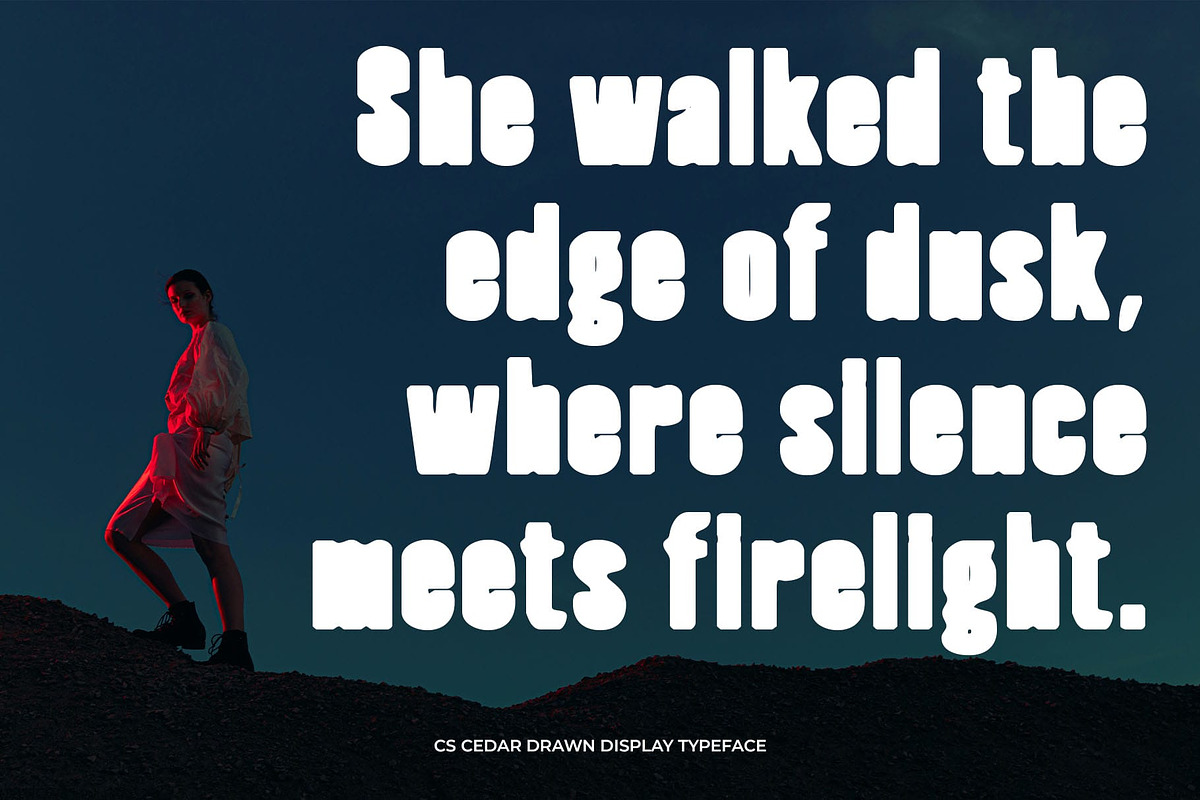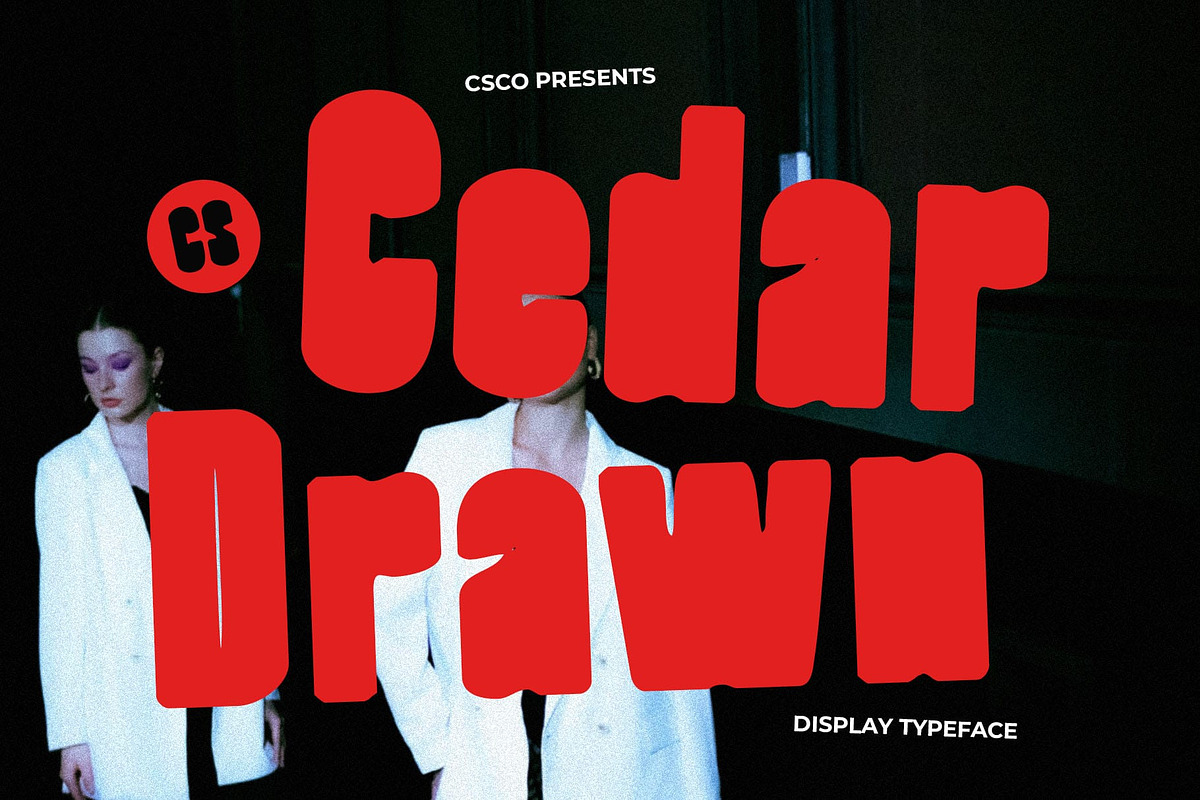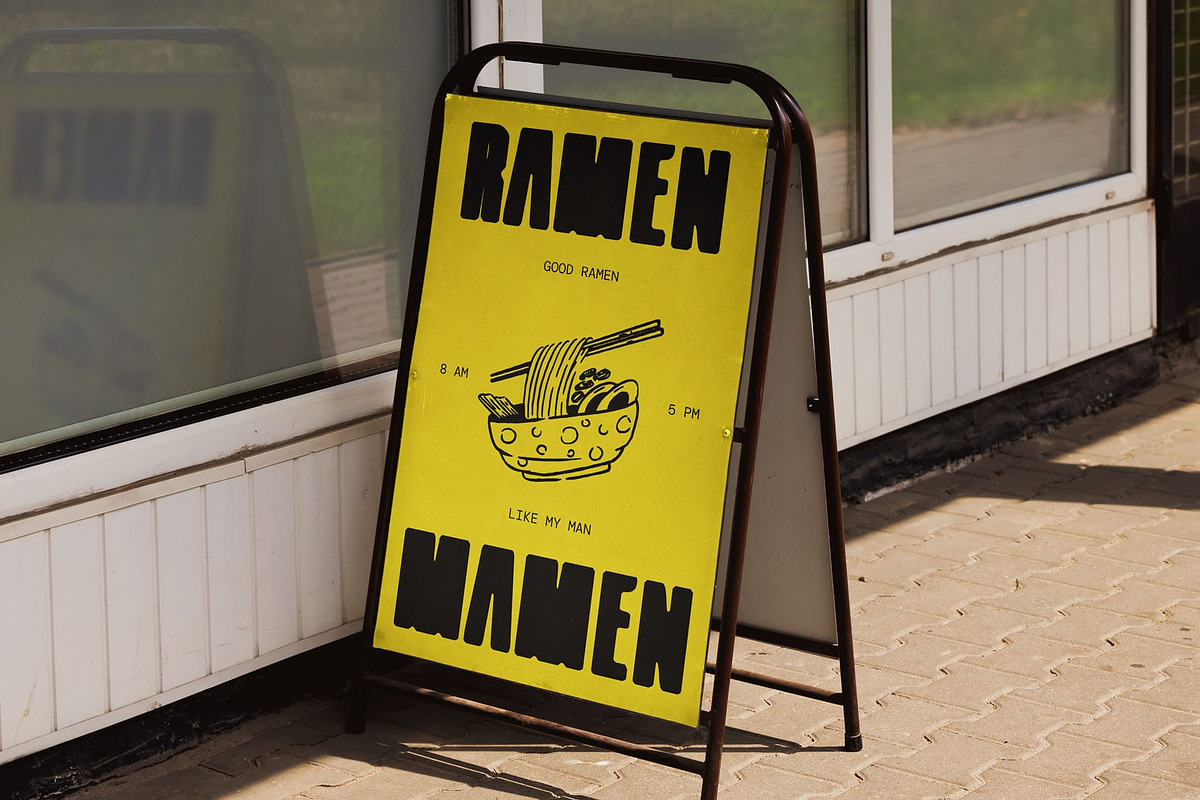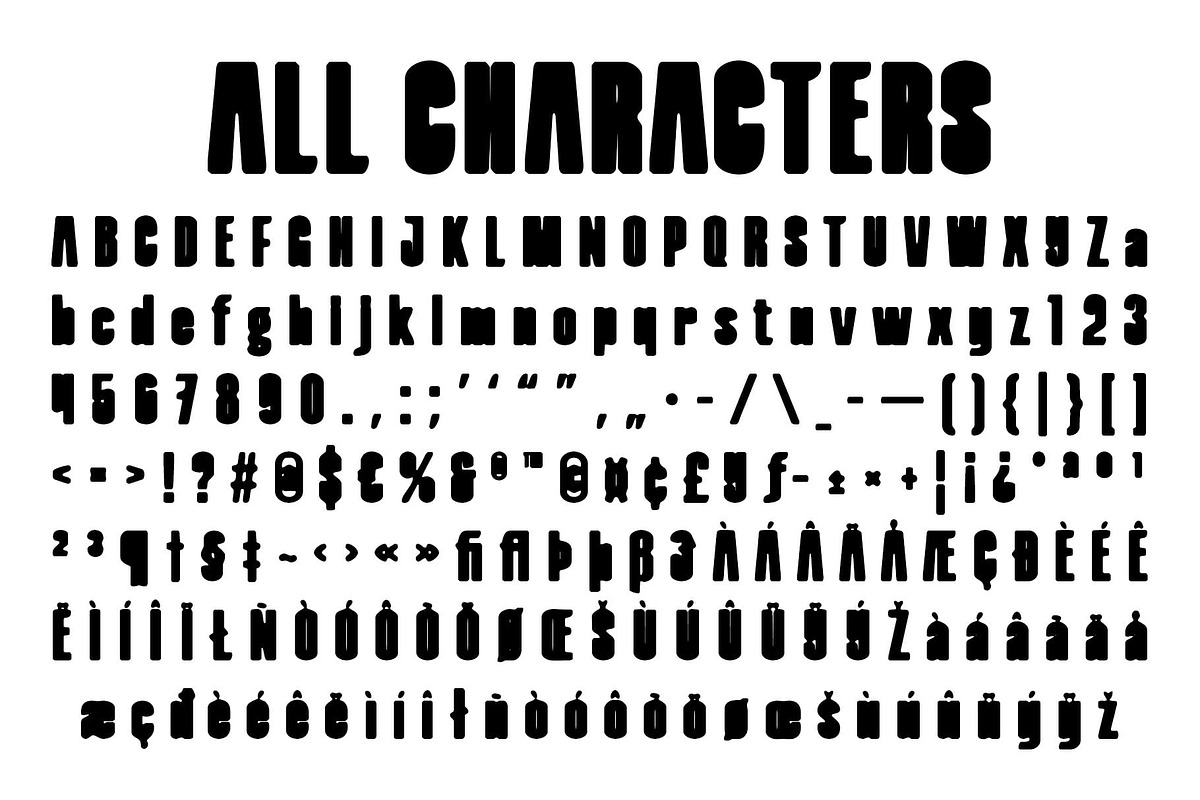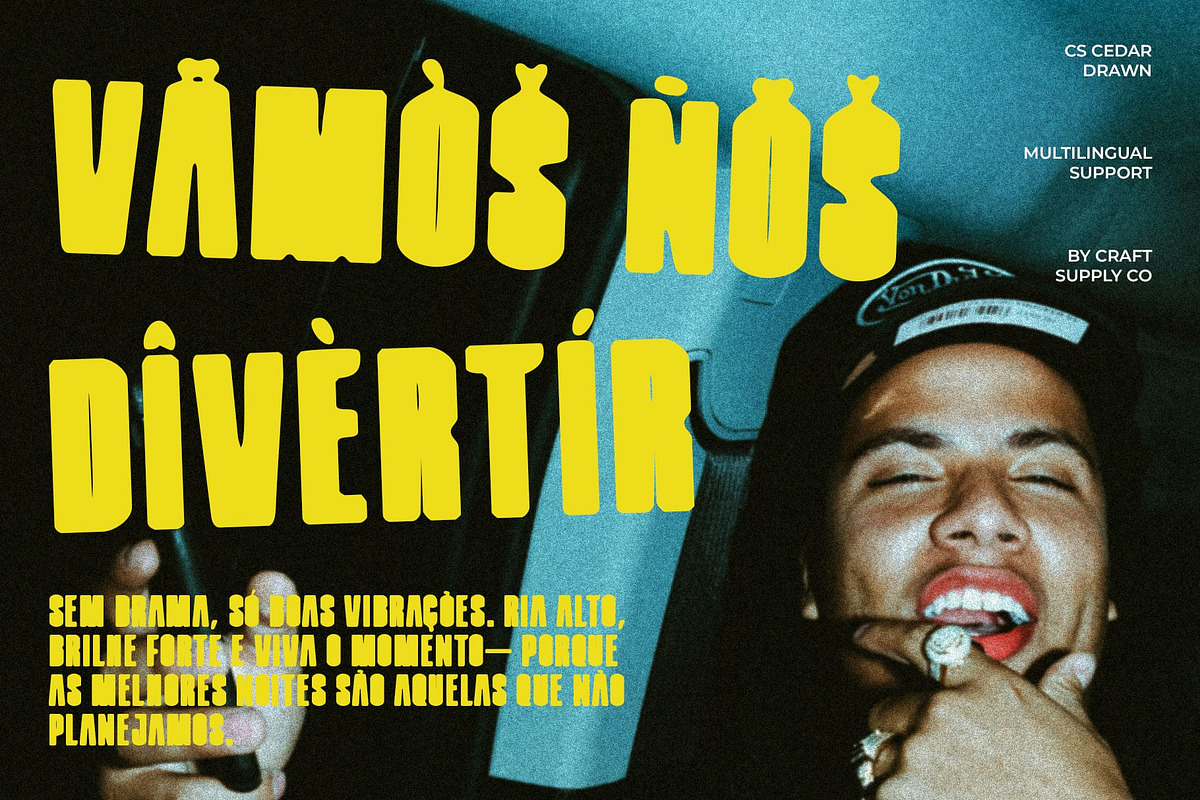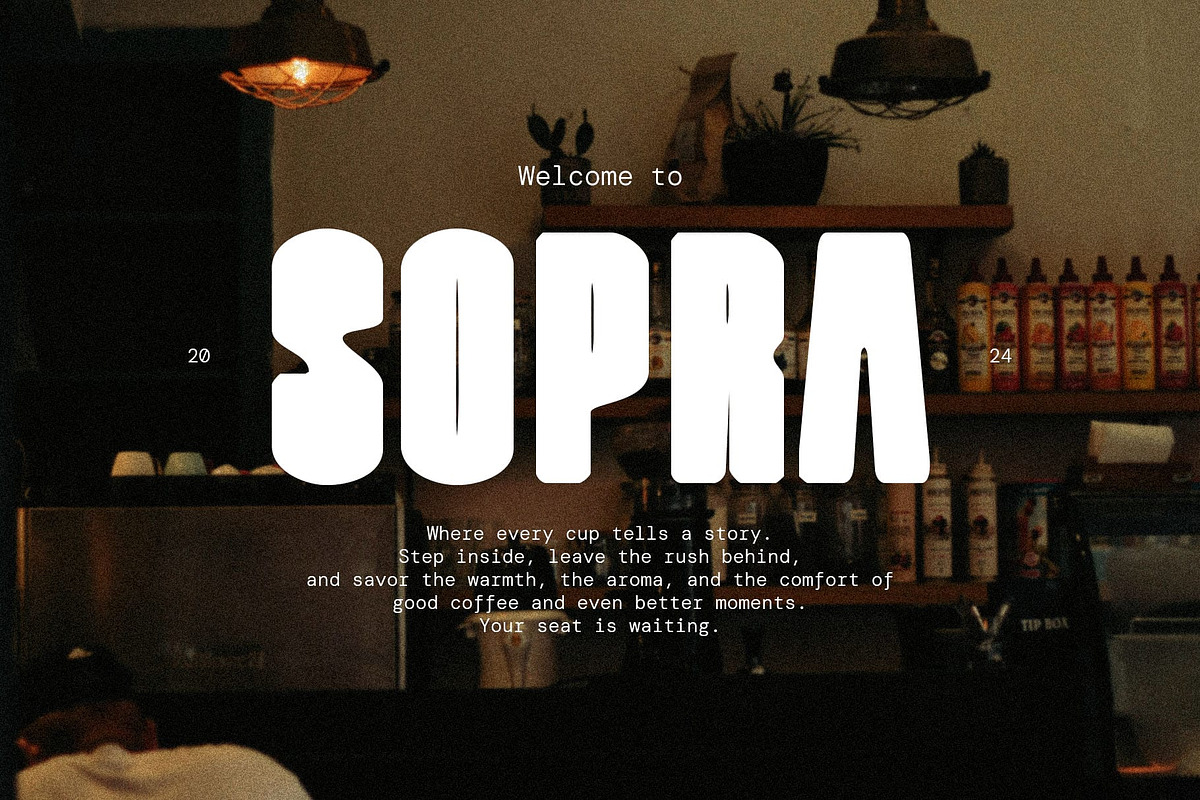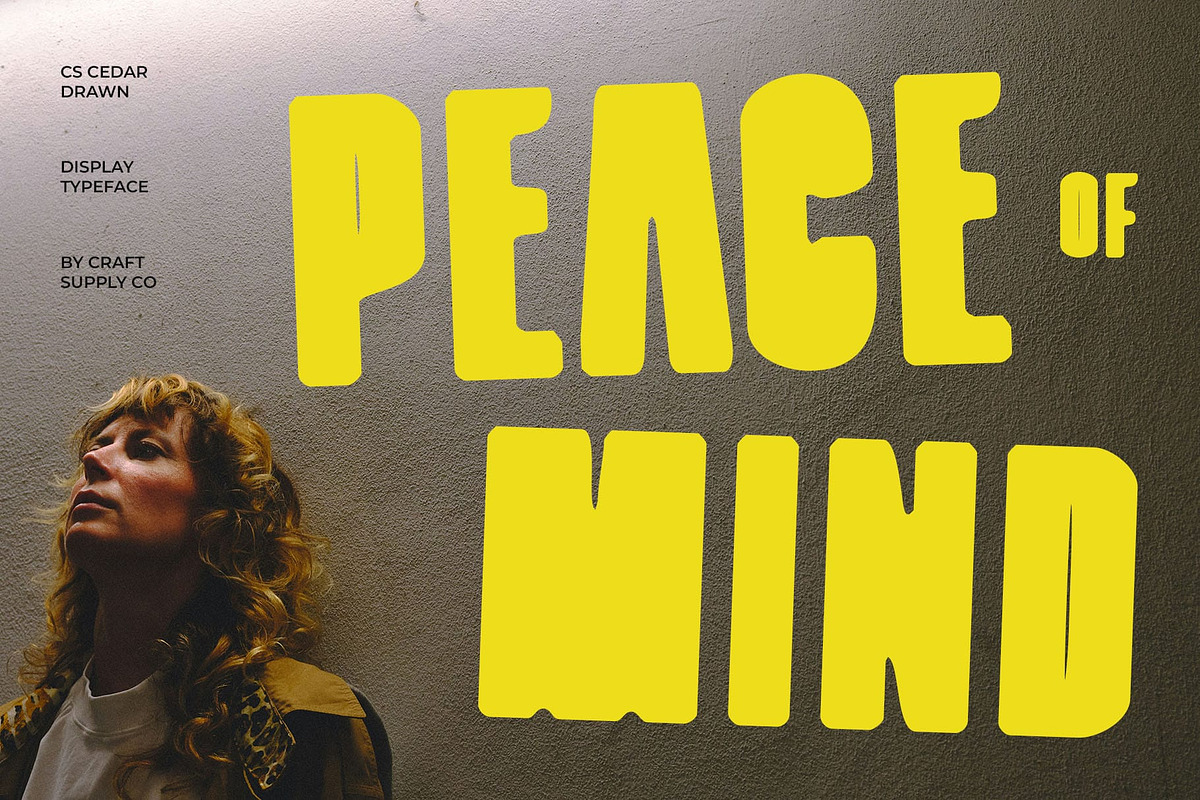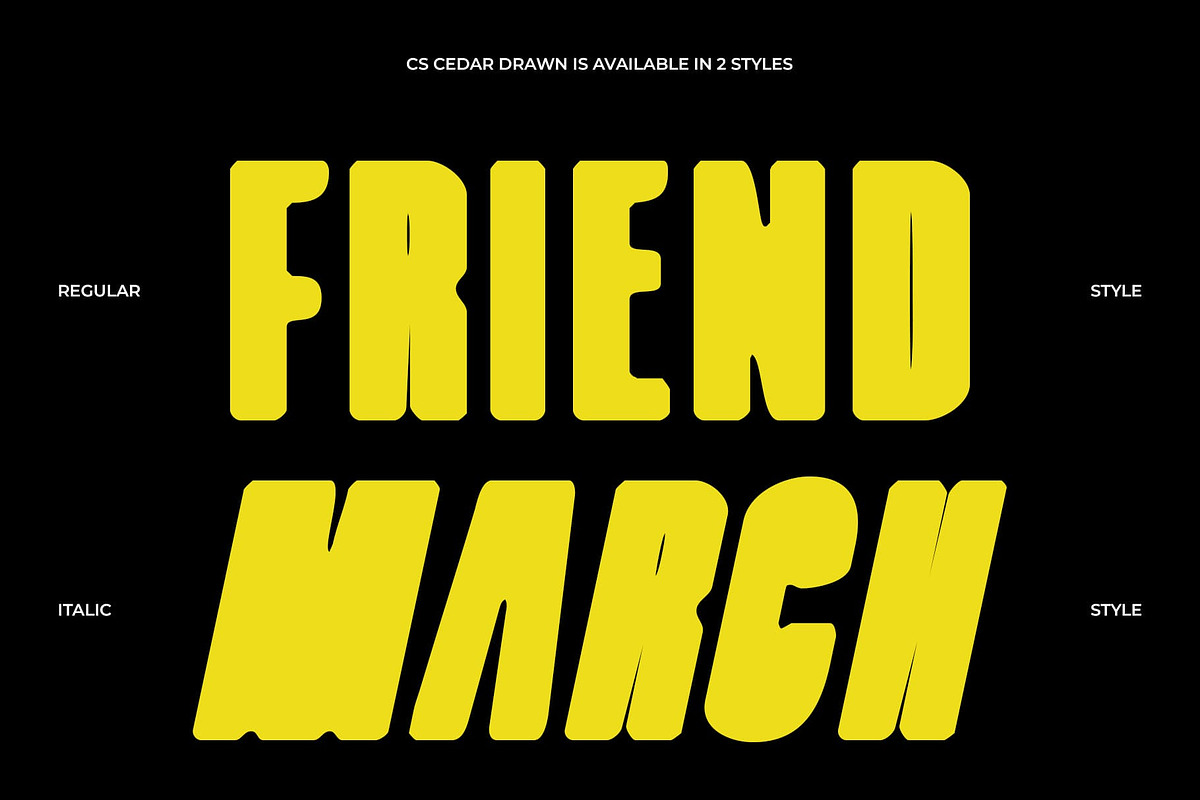
CS Cedar Drawn
CS Cedar Drawn – Modern Sans Serif with Artistic Inktrap Detail
Technical Precision Meets Handcrafted Expression CS Cedar Drawn is a modern sans-serif font that combines bold structure with a distinctive drawn texture, offering the perfect balance between clean professionalism and creative flair.
A Bold Typeface with a Hand-Touched Twist The added hand-drawn effect introduces a sense of rawness and originality, subtly breaking away from overly sterile digital fonts. This gives the stylish and disruptive font a refined yet human touch, with each stroke appearing intentional, tangible, and rich in personality. It’s designed for those who want their text to feel confident, clean, and crafted—all at once.
Versatile and Visionary for Modern Design From experimental branding and contemporary editorial layouts to creative posters and tech-inspired visuals, this bold and distinctive font adapts beautifully to projects that demand a modern yet expressive identity. It brings structure without rigidity, and creativity without chaos—making it a top choice for bold visual statements.
Built for Designers Who Value Detail and Originality Whether you’re designing for a fashion label, a creative agency, or an indie publication, this unique and edgy font offers a unique voice that feels both artistic and forward-thinking. It’s ideal for those seeking a font that stands out while remaining readable, stylish, and versatile across formats.